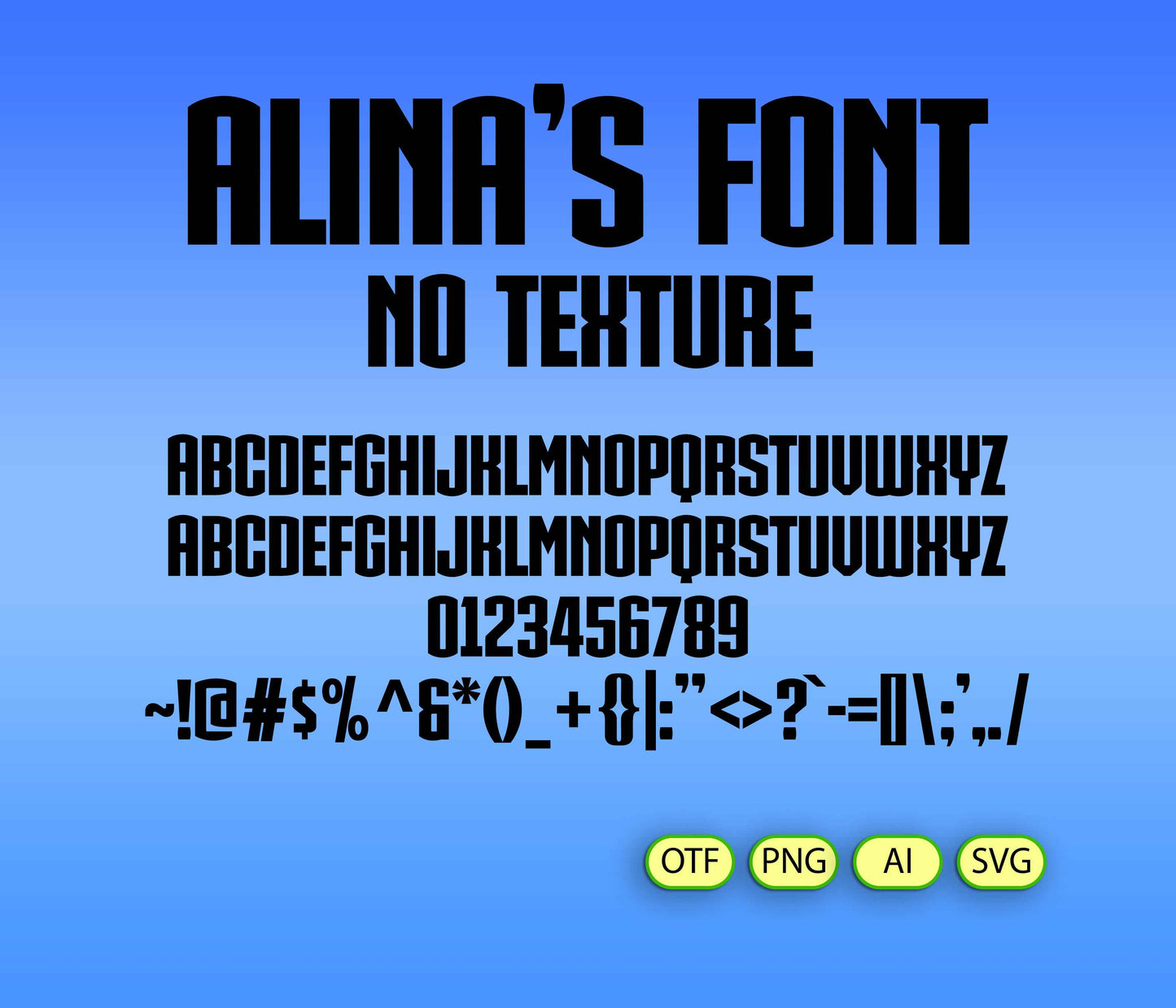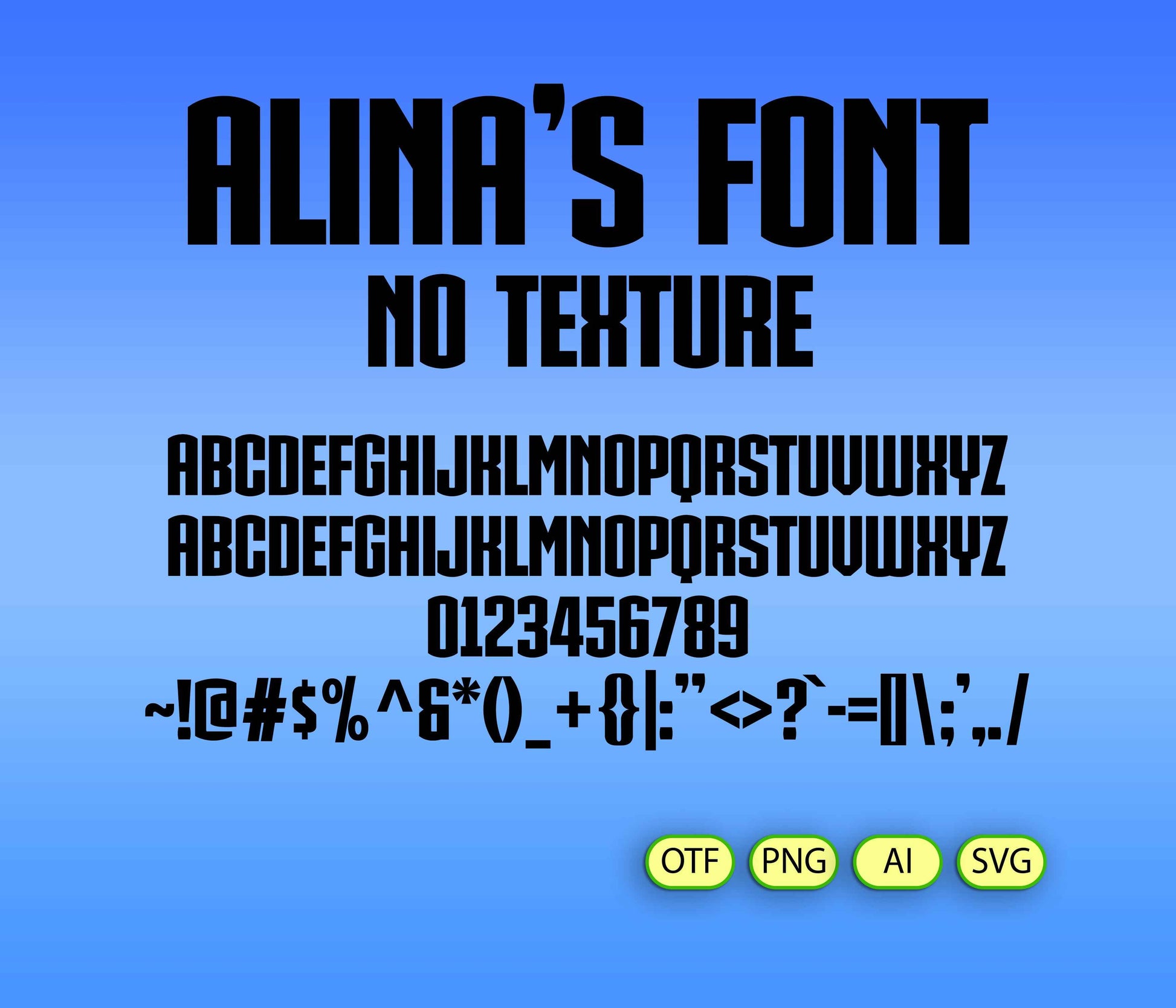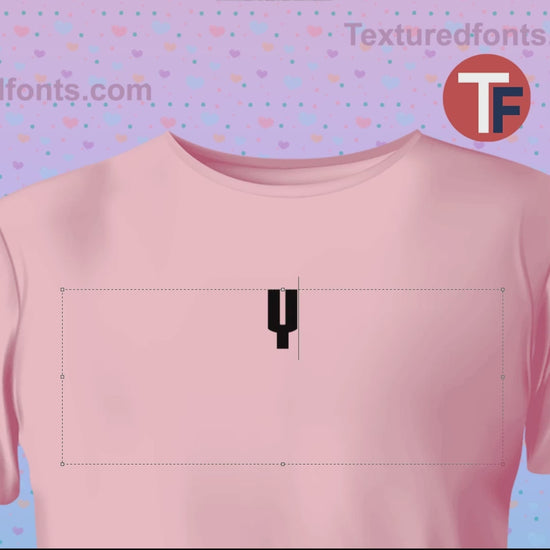
Cyber Technology Hero Font
Tech Hero Font: Engineering Your Design Aesthetic
Channel the high-tech sophistication of a genius inventor superhero with the Tech Hero font, designed to embody the cutting-edge style and dynamic flair of an iconic armored avenger franchise. Perfect for projects that require a sleek, modern touch, this font is ideal for tech enthusiasts, sci-fi fans, and designers alike. The Tech Hero font features clean, angular lines and a futuristic design that reflects the advanced technology of a fictional high-tech industry leader. Its bold, assertive characters are perfect for making a strong visual statement in any medium.
Application and Customization
Utilize the Tech Hero font in a variety of projects, such as promotional materials for tech companies, science fiction posters, gadget interfaces, and fan merchandise. Its contemporary style enhances digital content and adds a professional look to presentations and websites.
With its modern, tech-forward aesthetic, the Tech Hero font brings a piece of a futuristic superhero's world into your designs, empowering your projects with the essence of innovation and style. Whether you're creating visuals for a robotics competition, designing a user interface for a cutting-edge app, or crafting promotional materials for a sci-fi convention, this font captures the spirit of technological advancement and heroic ingenuity.